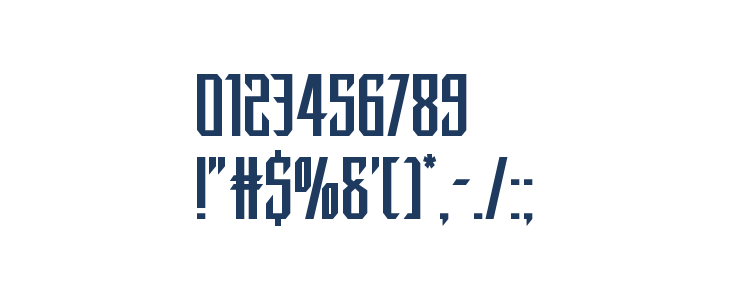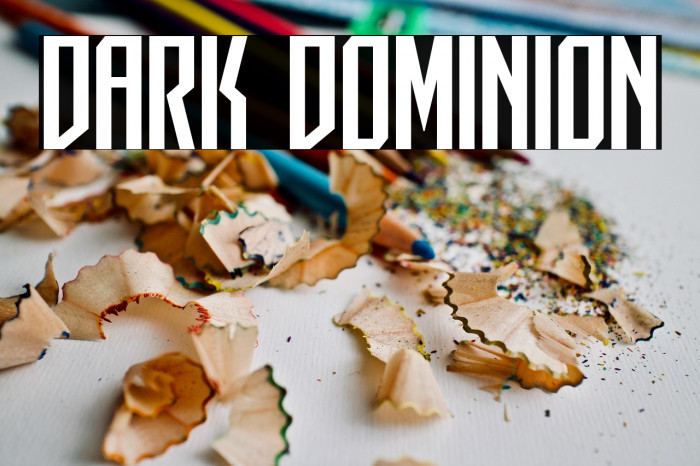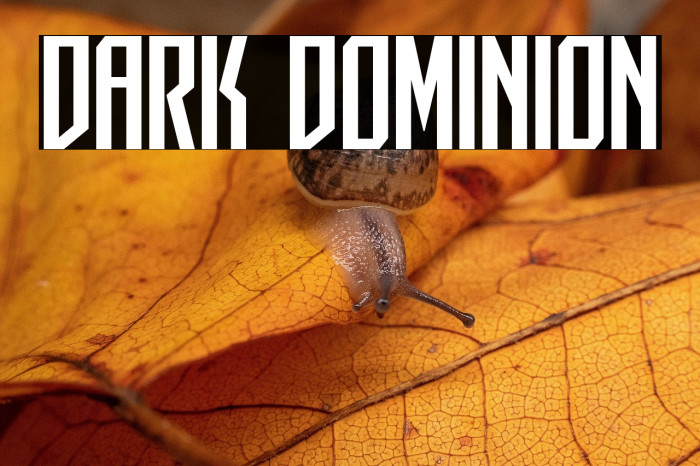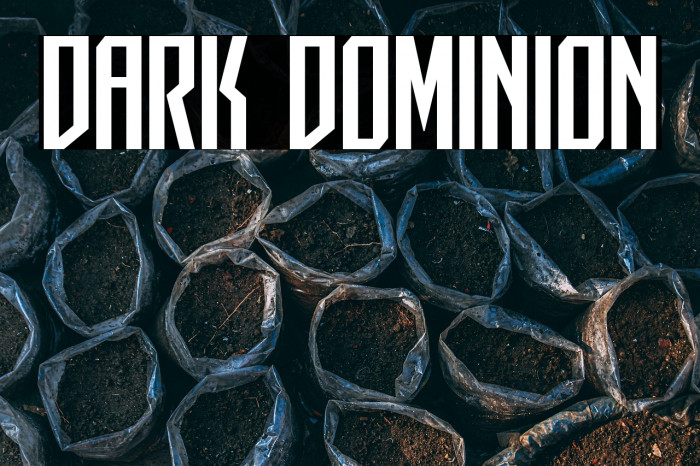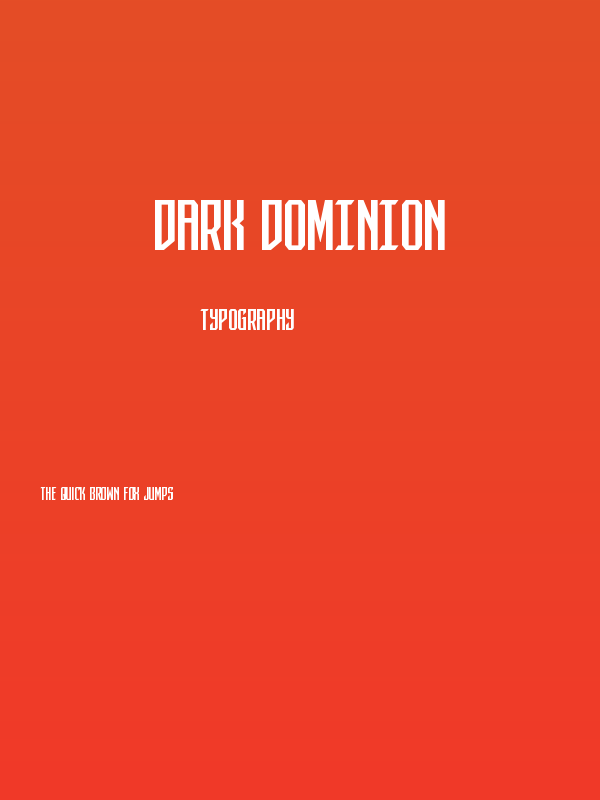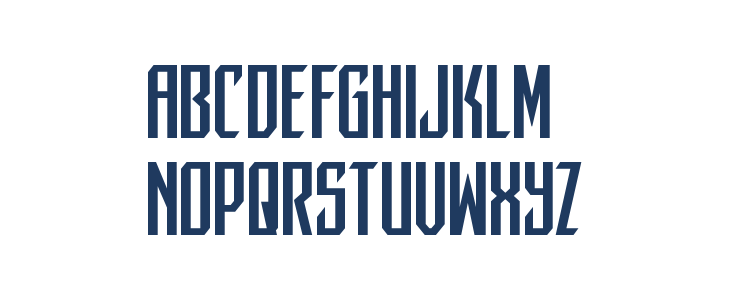
Dark Dominion Font
Dark Dominion Description
This font features a bold and striking design with sharp, angular edges and a geometric structure. The uppercase letters are tall and narrow, creating a commanding presence. The characters have a futuristic and edgy appearance, making them ideal for attention-grabbing headlines or logos. The numbers and special characters maintain the same bold style, ensuring consistency across all text elements. The overall aesthetic is modern and assertive, perfect for projects that require a strong visual impact.
| Proposed Projects | Ideal for branding, posters, video game titles, and sci-fi themed designs. |